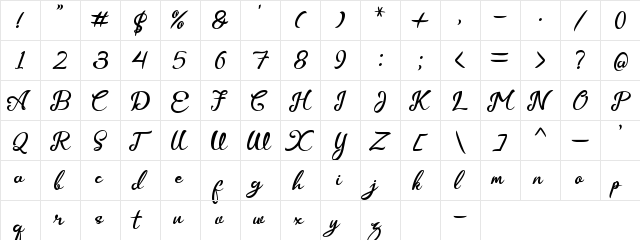
Dellon Regular Font Preview
Dellon Regular
Dellon Regular Font Details
| Foundry | tonymous 2019 |
| Designer | tonymous 2019 |
Design Context for Dellon Typeface
Dellon takes a measured approach to typography — its balanced proportions and neutral character make it a reliable workhorse for both digital and print work.